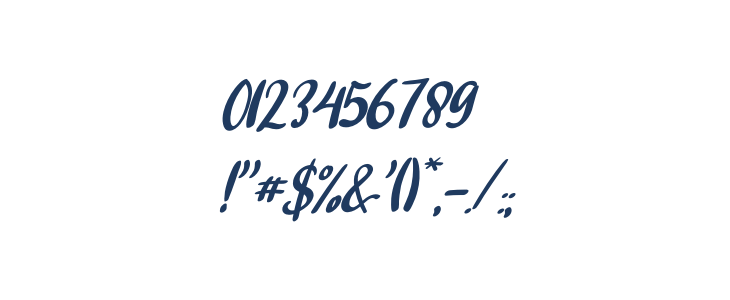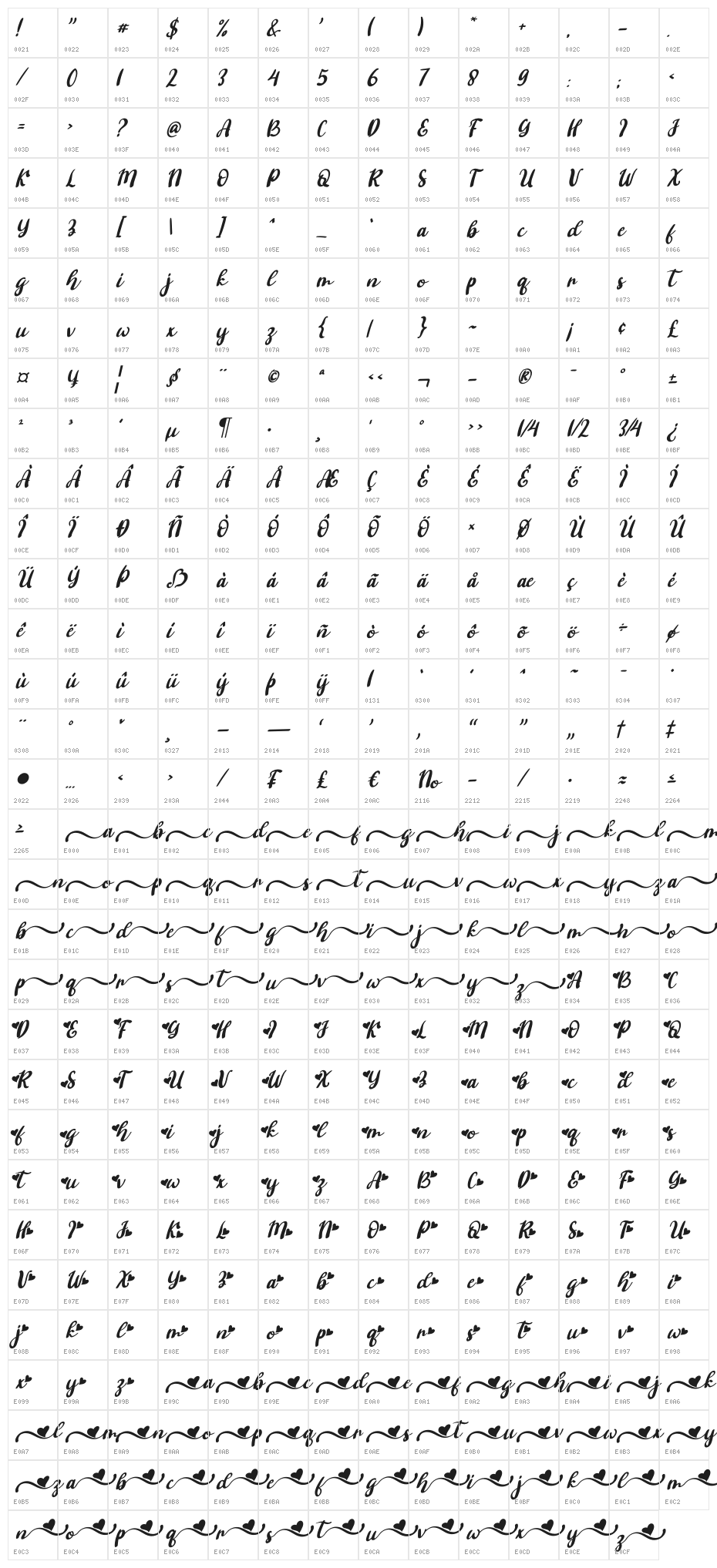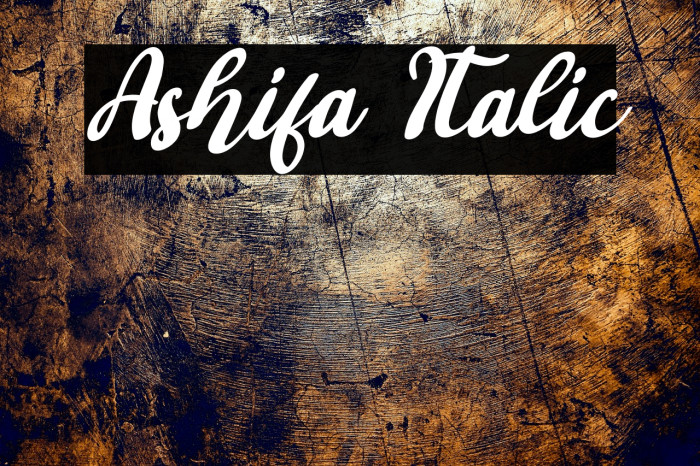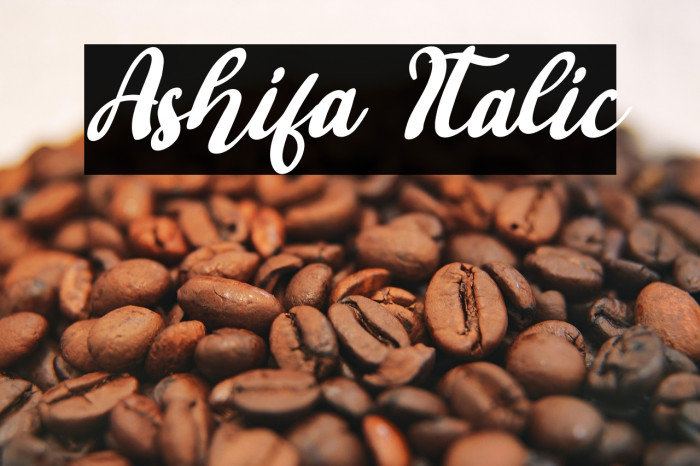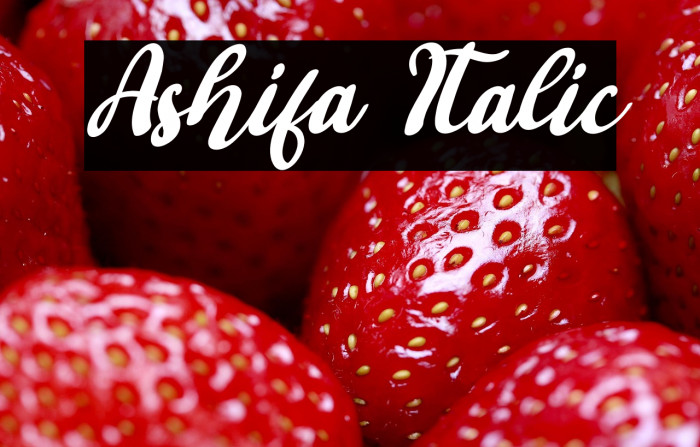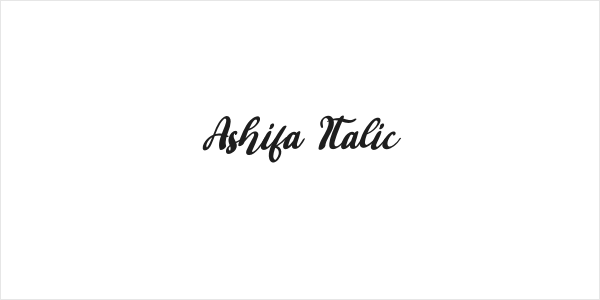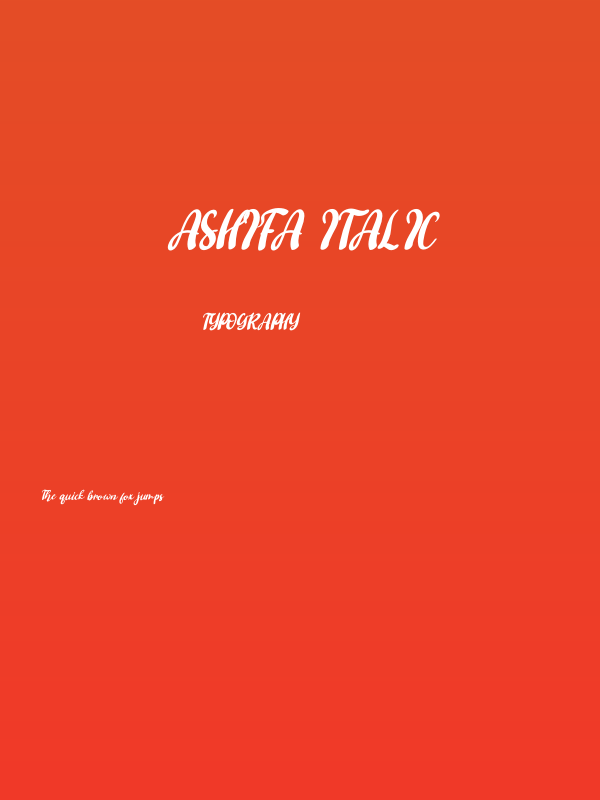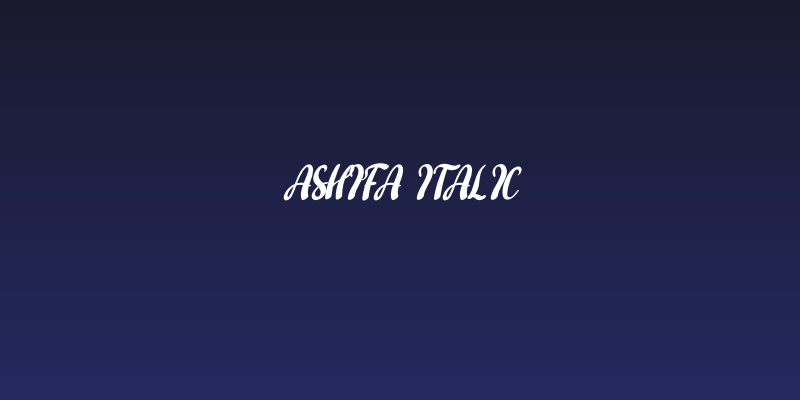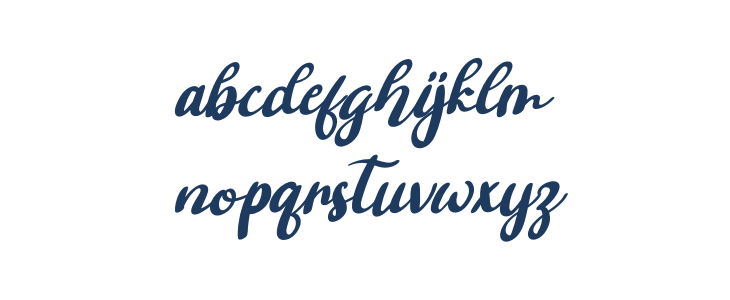
Ashifa Italic Font
Ashifa Italic Description
This font features a bold and expressive script style with a flowing, cursive design. The characters exhibit a dynamic and energetic appearance, with thick strokes and smooth curves that create a sense of movement. The uppercase letters are particularly striking, with their dramatic flourishes and elegant loops. The lowercase letters maintain a consistent style, complementing the uppercase with their own graceful forms. Numbers and special characters are designed to match the overall aesthetic, ensuring a cohesive look across all text. The font's italic nature adds to its fluidity, making it ideal for projects that require a touch of sophistication and flair.
| Proposed Projects | Ideal for wedding invitations, branding, logos, and elegant packaging designs. |